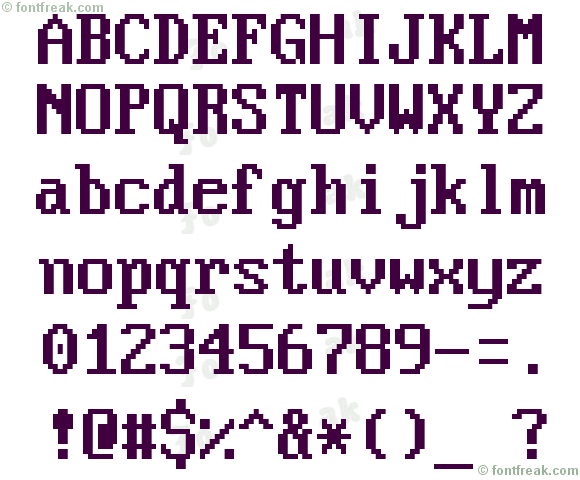
Video Terminal Screen
About Video Terminal Screen
The Video Terminal Screen font, designed by E.a. Behl, is a distinctive display typeface that captures the essence of retro computing aesthetics. This font belongs to the decorative category and is characterized by its pixelated appearance, reminiscent of vintage video terminals. With a medium stroke weight and a monospaced design, the letters maintain uniformity, evoking a sense of nostalgia for early digital interfaces. The spacing is tight yet balanced, contributing to an overall clean look that remains legible even at smaller sizes.
Ideal for a variety of creative projects, the Video Terminal Screen font can be effectively used in video game graphics, tech-themed event flyers, and retro-style posters. It also makes a perfect choice for digital art projects and merchandise aimed at tech enthusiasts. Small business owners looking to create a unique branding experience will benefit from its eye-catching style, while graphic designers can use it to imbue their work with a sense of vintage charm.
What sets the Video Terminal Screen font apart is its ability to blend a retro aesthetic with modern usability. It serves as a reminder of the early days of computing while still being versatile enough for contemporary projects. This balance of nostalgia and functionality makes it an appealing choice for designers looking to add a distinctive touch to their work.